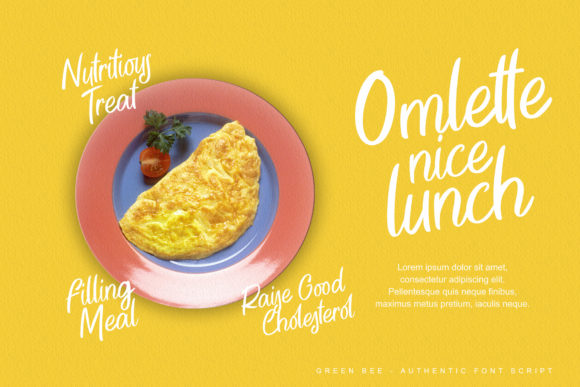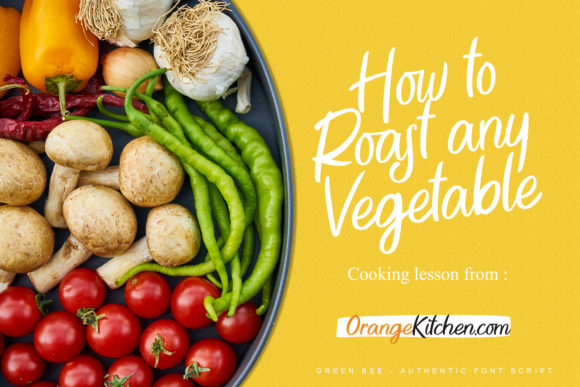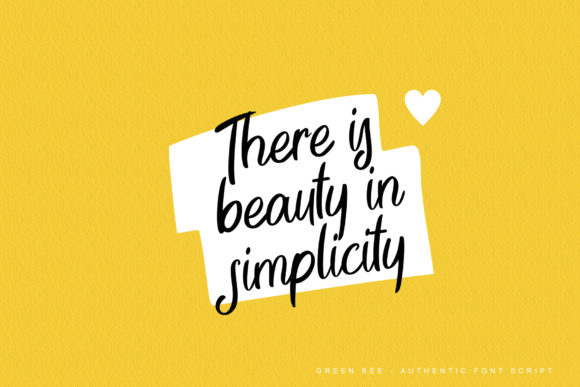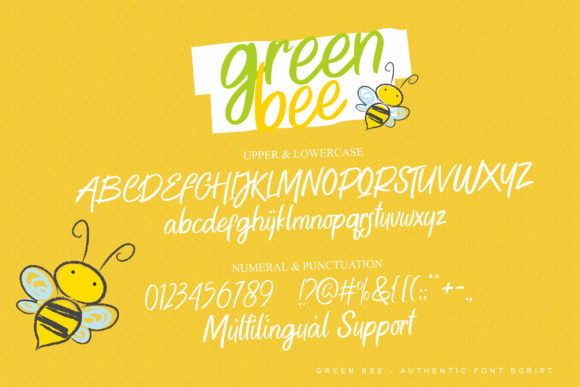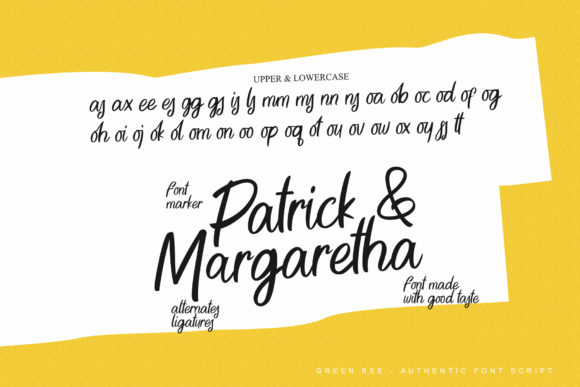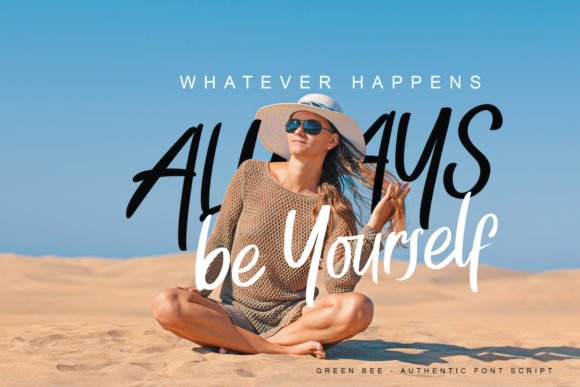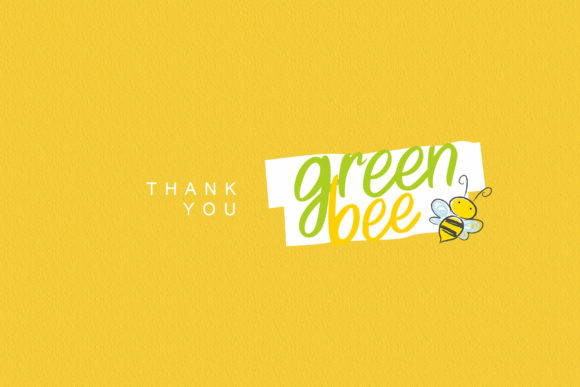
Green Bee Font
About Green Bee Font
Introducing Green Bee: The Authentic and Casual Handwritten Font
Embrace the authenticity and casual charm of Green Bee, a handwritten font that exudes a delightful and adorable vibe. With its unique and casual appeal, Green Bee is perfect for personalized designs such as invitations, thank you cards, quotes, greeting cards, logos, social media posts, branding, and more. Watch as Green Bee adds an amazing touch to each of your projects, infusing them with a sense of heartfelt allure and charm.
Green Bee’s authentic and casual appeal brings a sense of originality and warmth to your designs. Its handwritten letterforms flow with a seamless beauty, making your text exude a delightful and adorable energy.
As a font that stands true to its authenticity, Green Bee becomes the go-to choice for projects that seek a touch of genuine charm and casual elegance. Its unique and casual style ensures that your work resonates with a personalized and heartfelt look.
Embrace the charm of Green Bee as you embark on your creative journey. Let it be the font that elevates your designs, adding a sense of charm and uniqueness in every project.
As you explore the possibilities of Green Bee, you’ll find it to be a font that enhances your designs with ease. Its adorable and casual handwritten beauty transforms your work, ensuring that your creations leave a lasting impression.
So, let Green Bee be the font that adds a touch of authenticity and charm to your designs. Embrace its adorable and casual style, and watch as your personalized designs, logos, quotes, and more come alive with a sense of delightful allure. With Green Bee as your go-to font, your designs will resonate with warmth and originality, captivating your audience and leaving a lasting impression. Embrace the charm of Green Bee and create designs that are truly adorable and unforgettable!